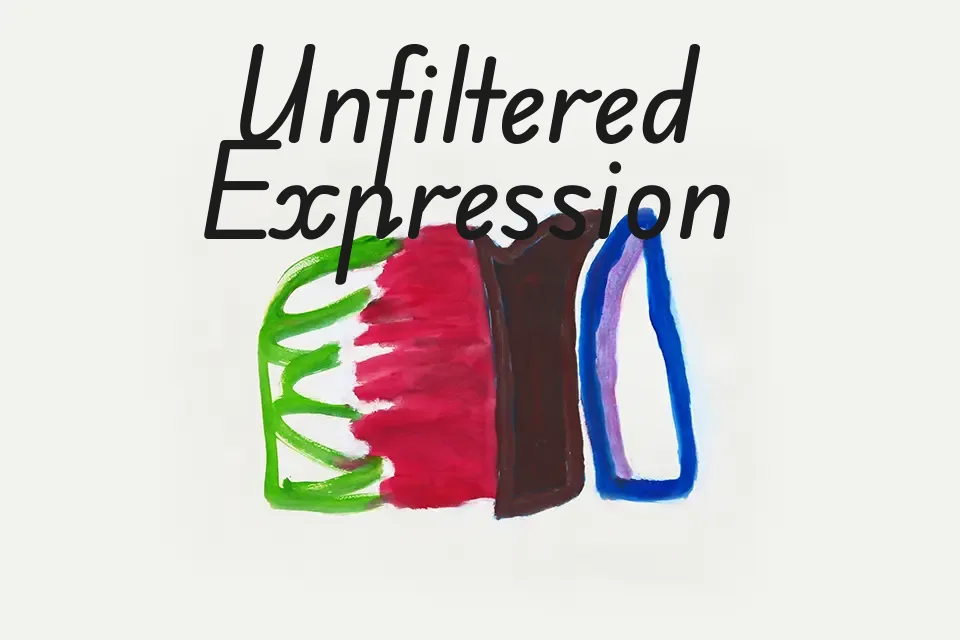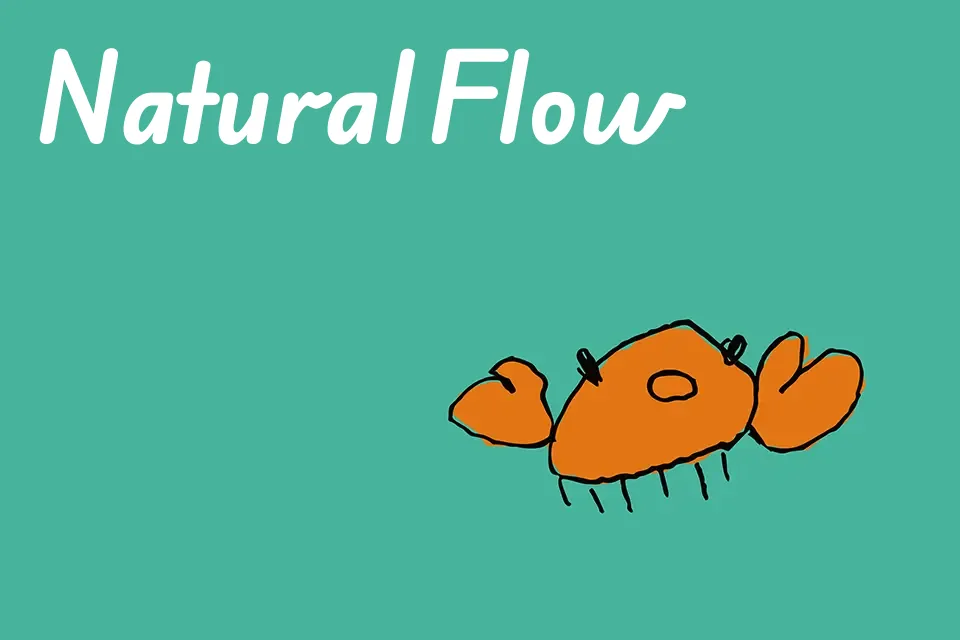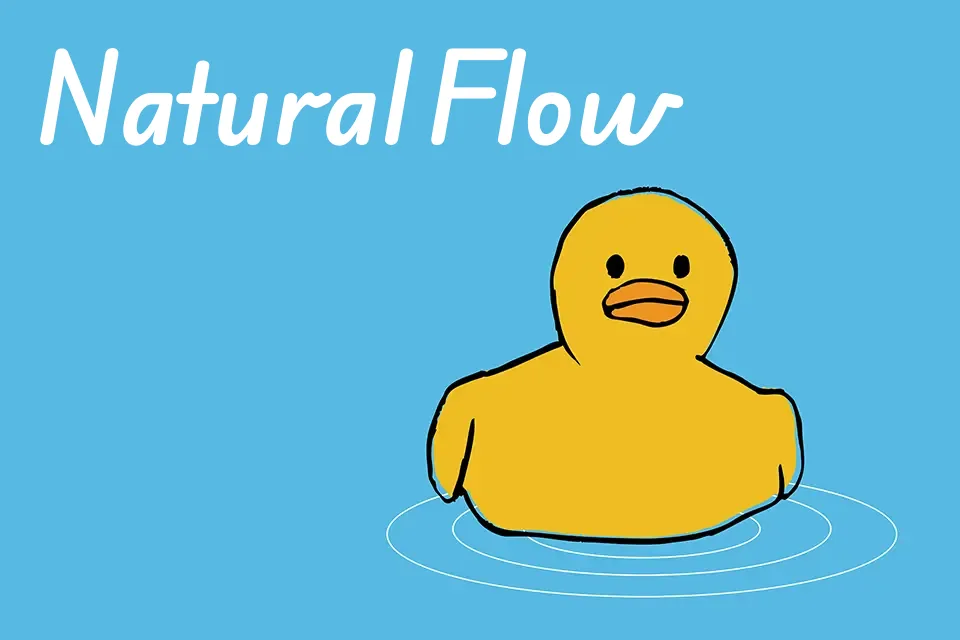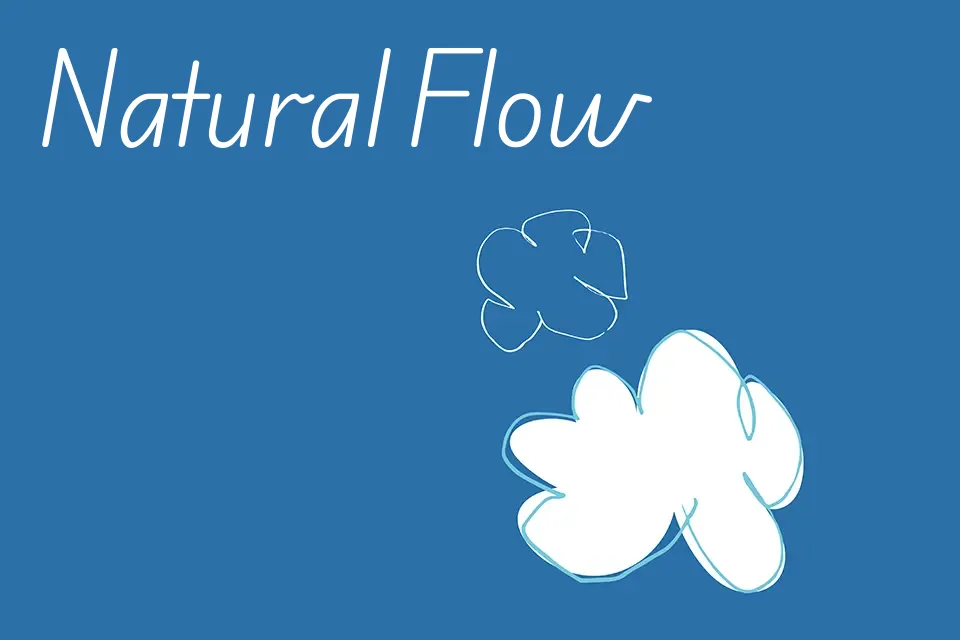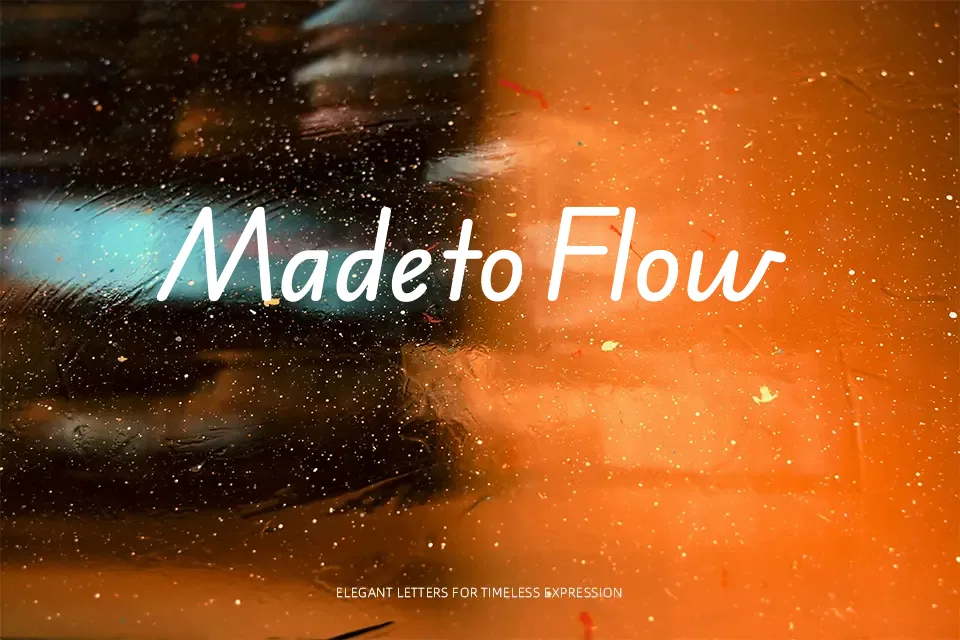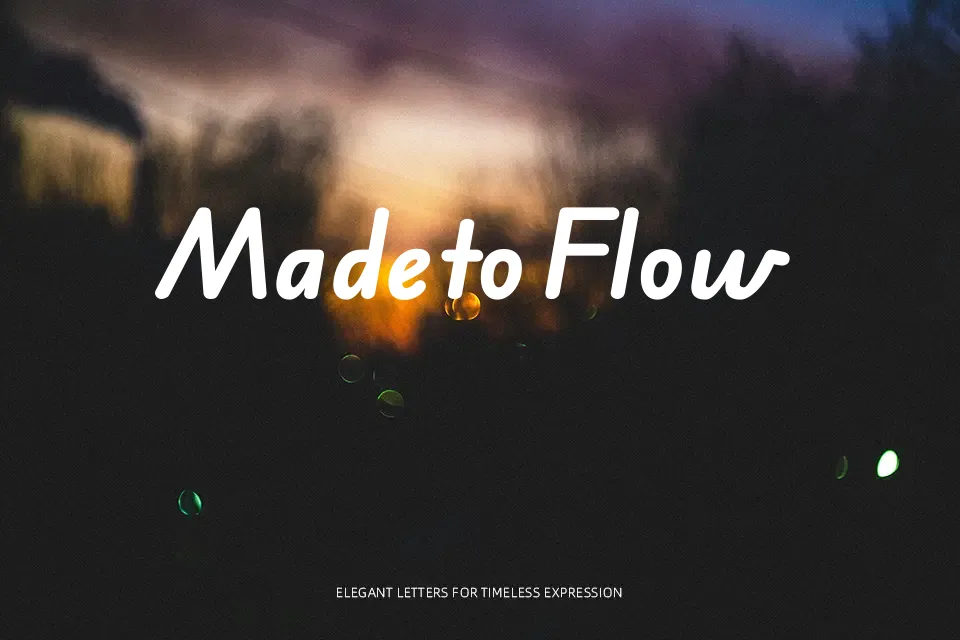
Edu VIC WA NT Hand Font
Designed by Tina Anderson, Corey Anderson
Edu VIC WA NT Hand mimics Australian school handwriting with rounded strokes, moderate weight, and open counters that stay readable even at smaller sizes. Letterforms feel disciplined but not stiff, so text still carries a human touch rather than a decorative flourish. In practice, it shines on classroom posters, handwriting guides, children’s book notes, and family-oriented branding where you want handwriting that looks “real” yet consistent. For long-form editorial text or highly formal branding, the constructed school look can feel too instructional and slightly monotonous, so it works better as display or short educational copy than as a general-purpose text face.
educational worksheets and printables
kids’ product or book branding
school posters and classroom signage
handwriting practice materials
formal corporate identities
luxury or high-end branding
dense long-form paragraphs
highly expressive artistic lettering
Perfect for branding, editorial, and headline, with a clean and handwritten style.